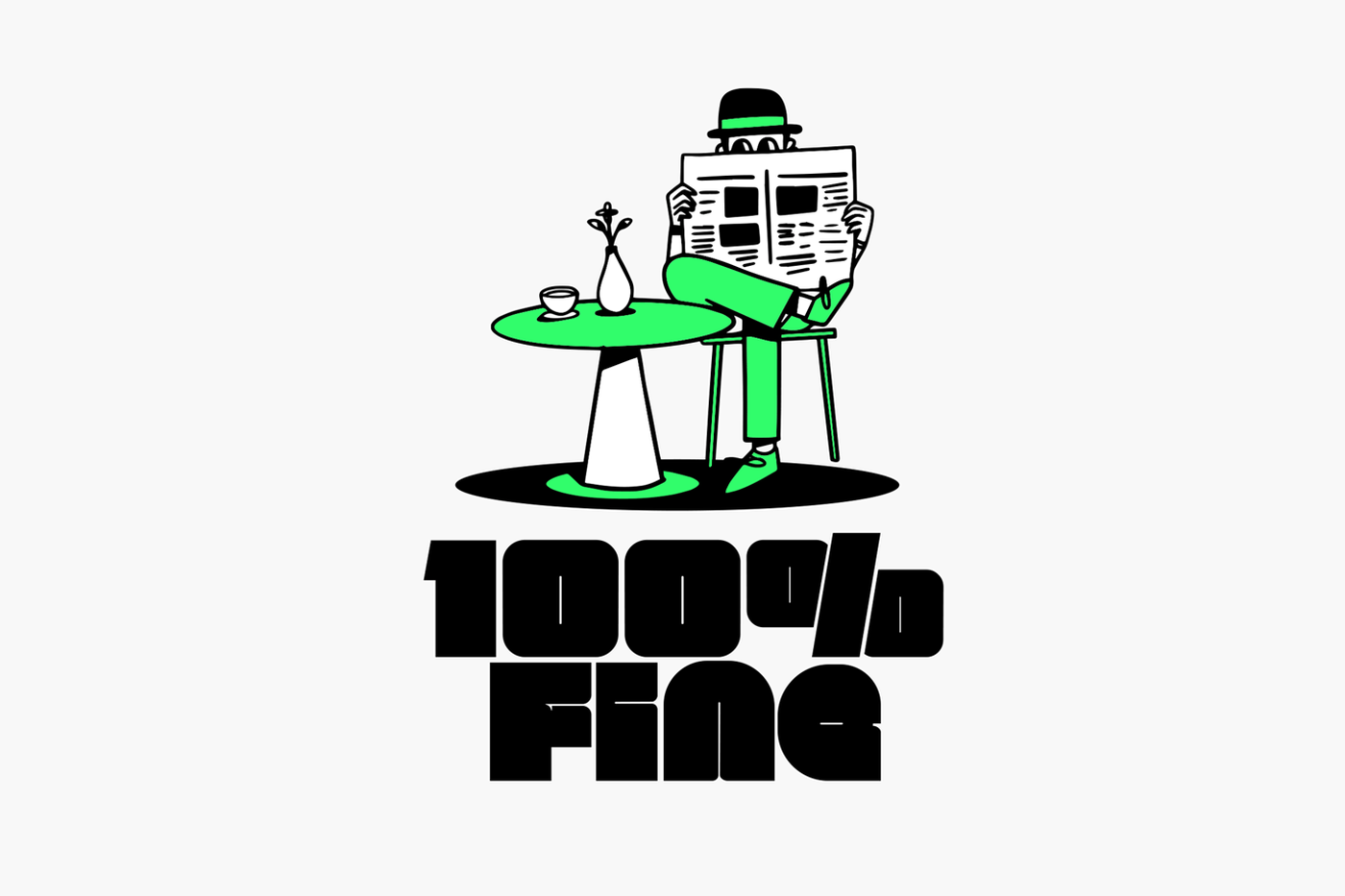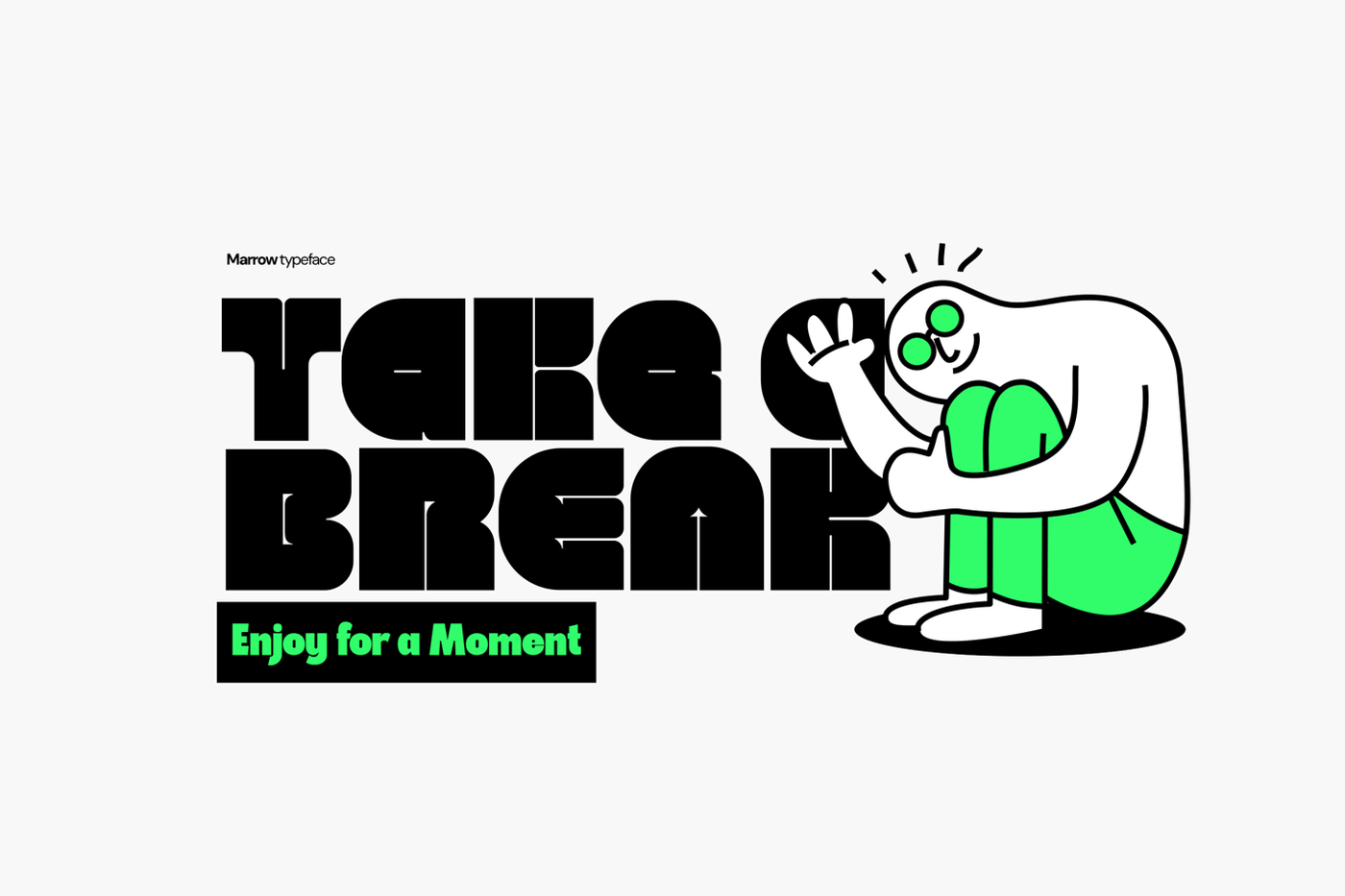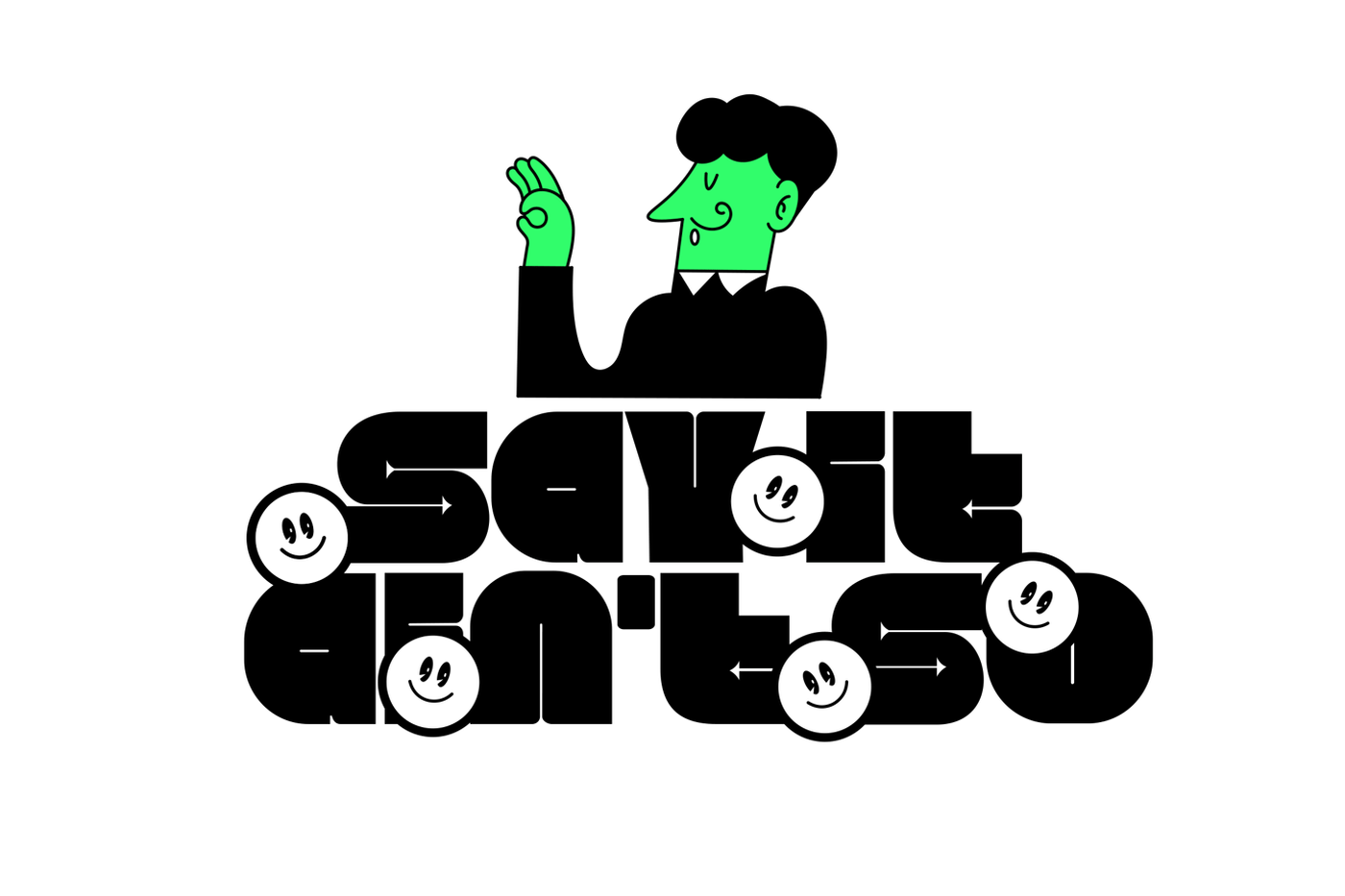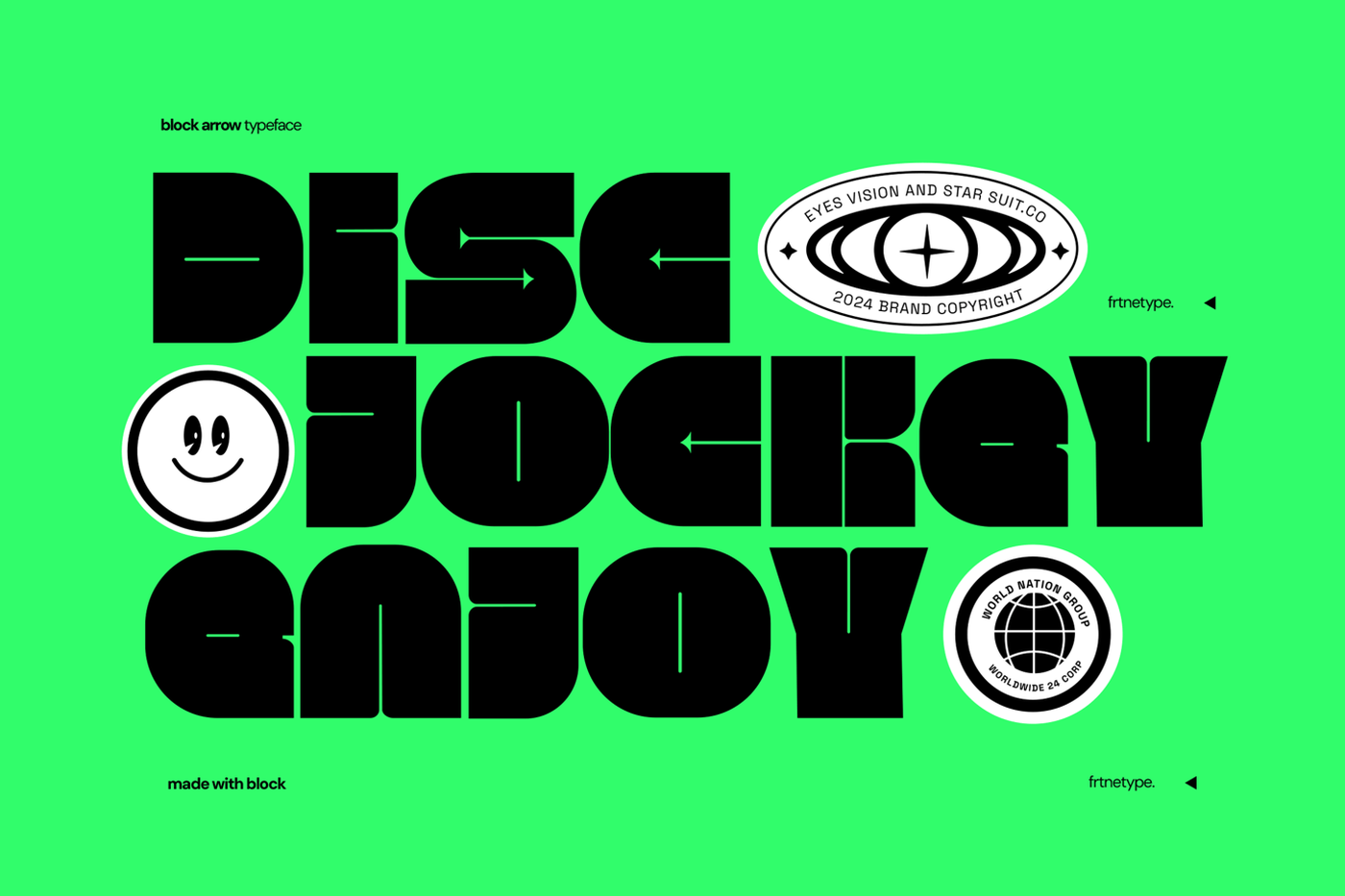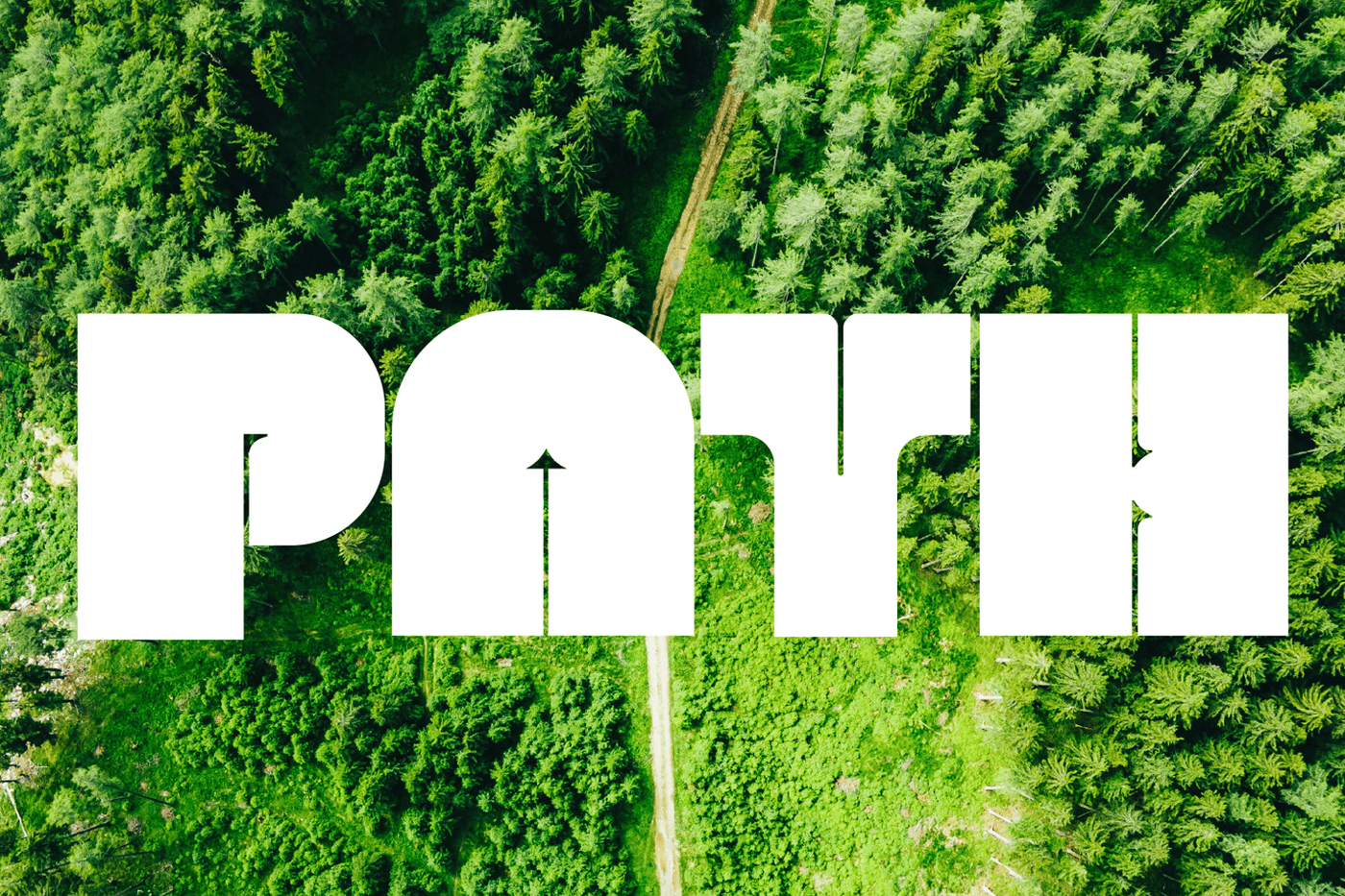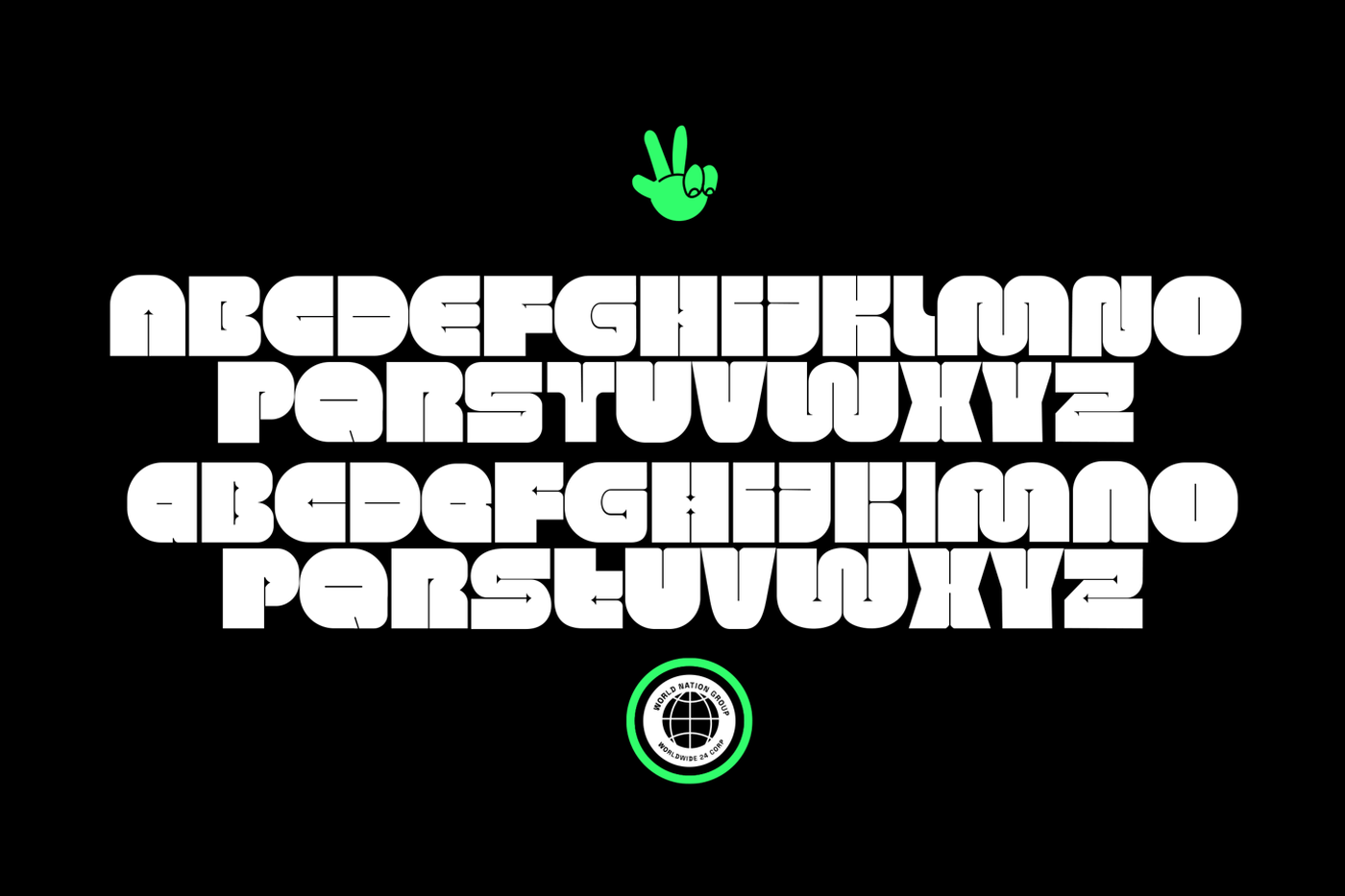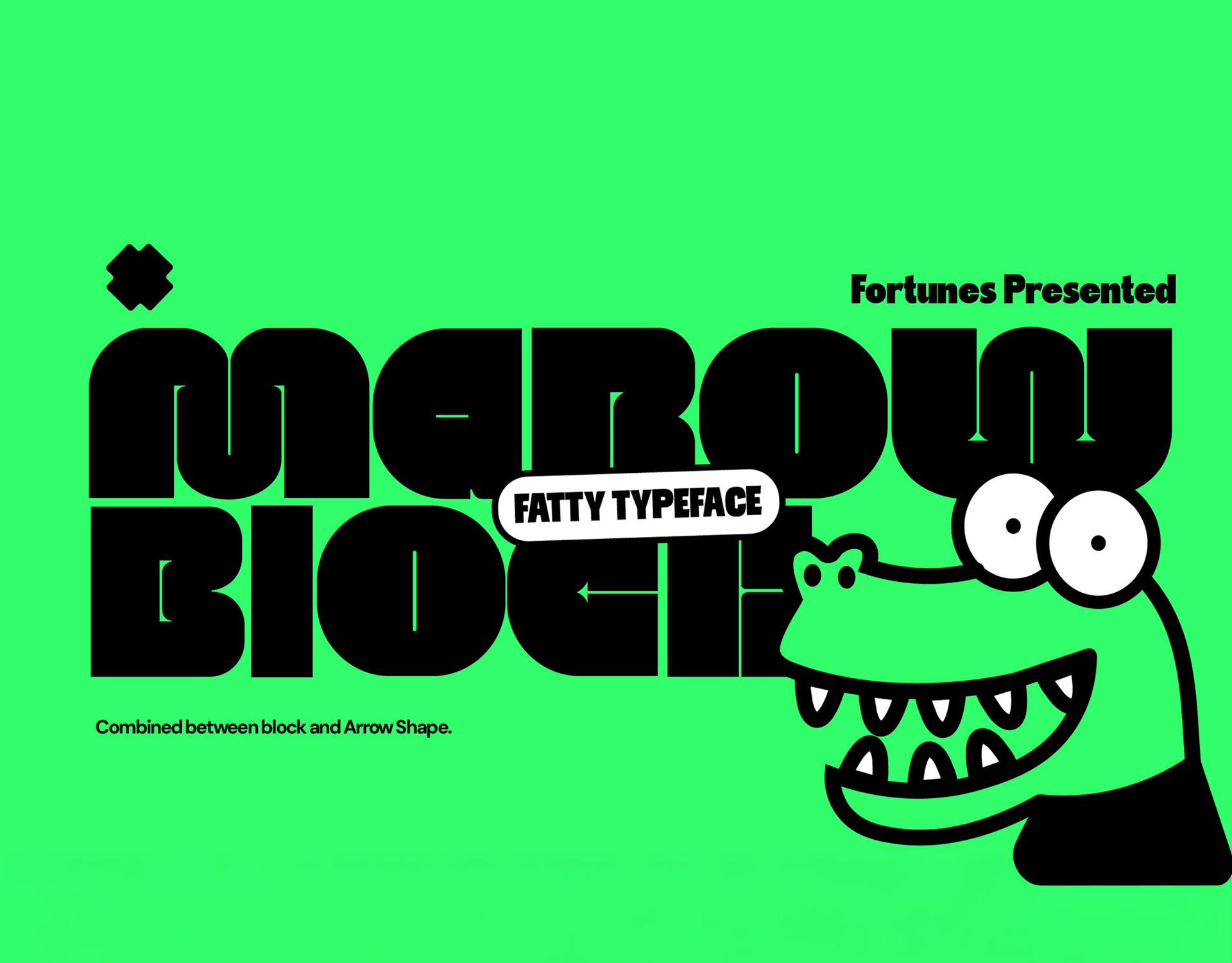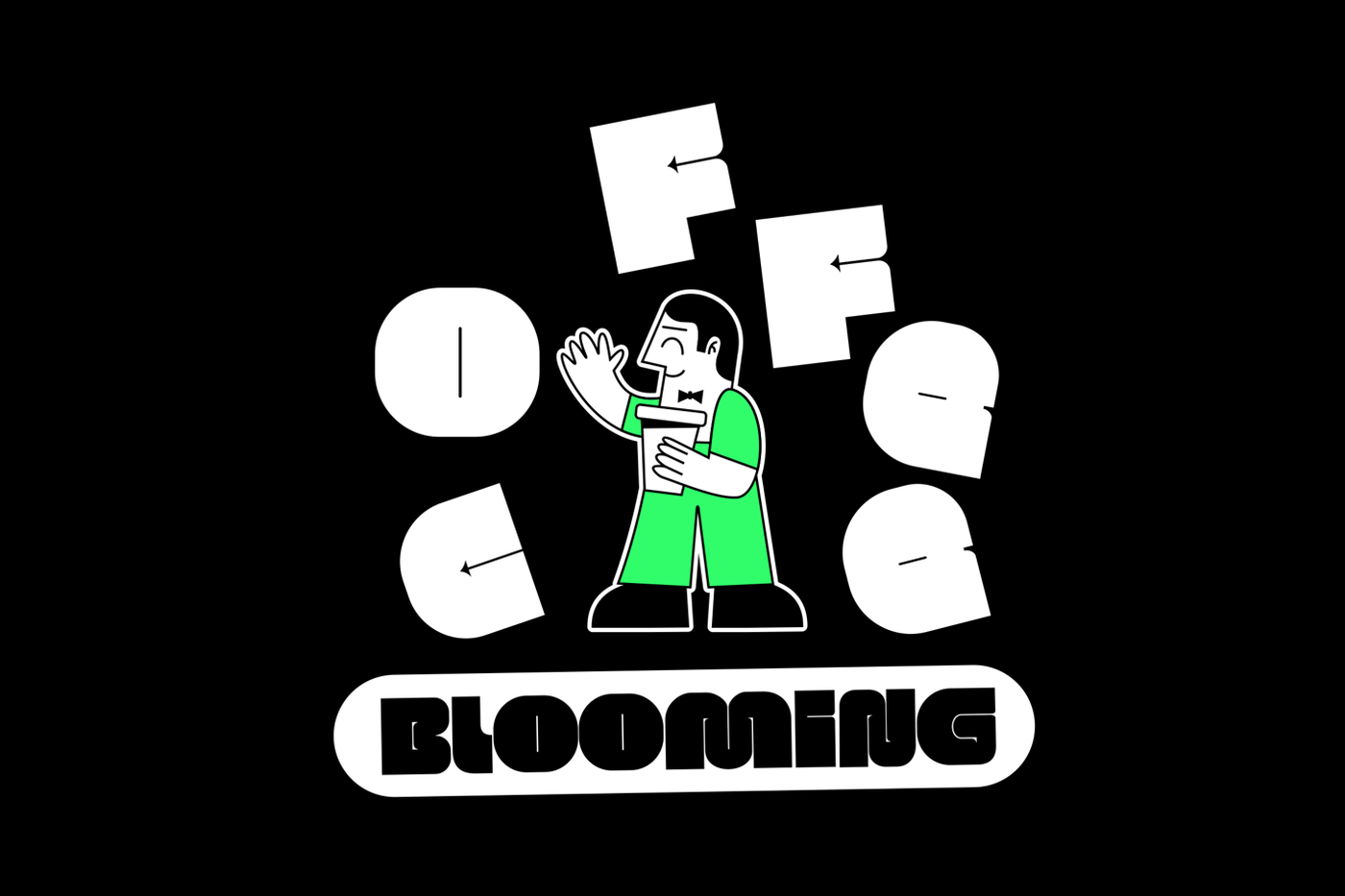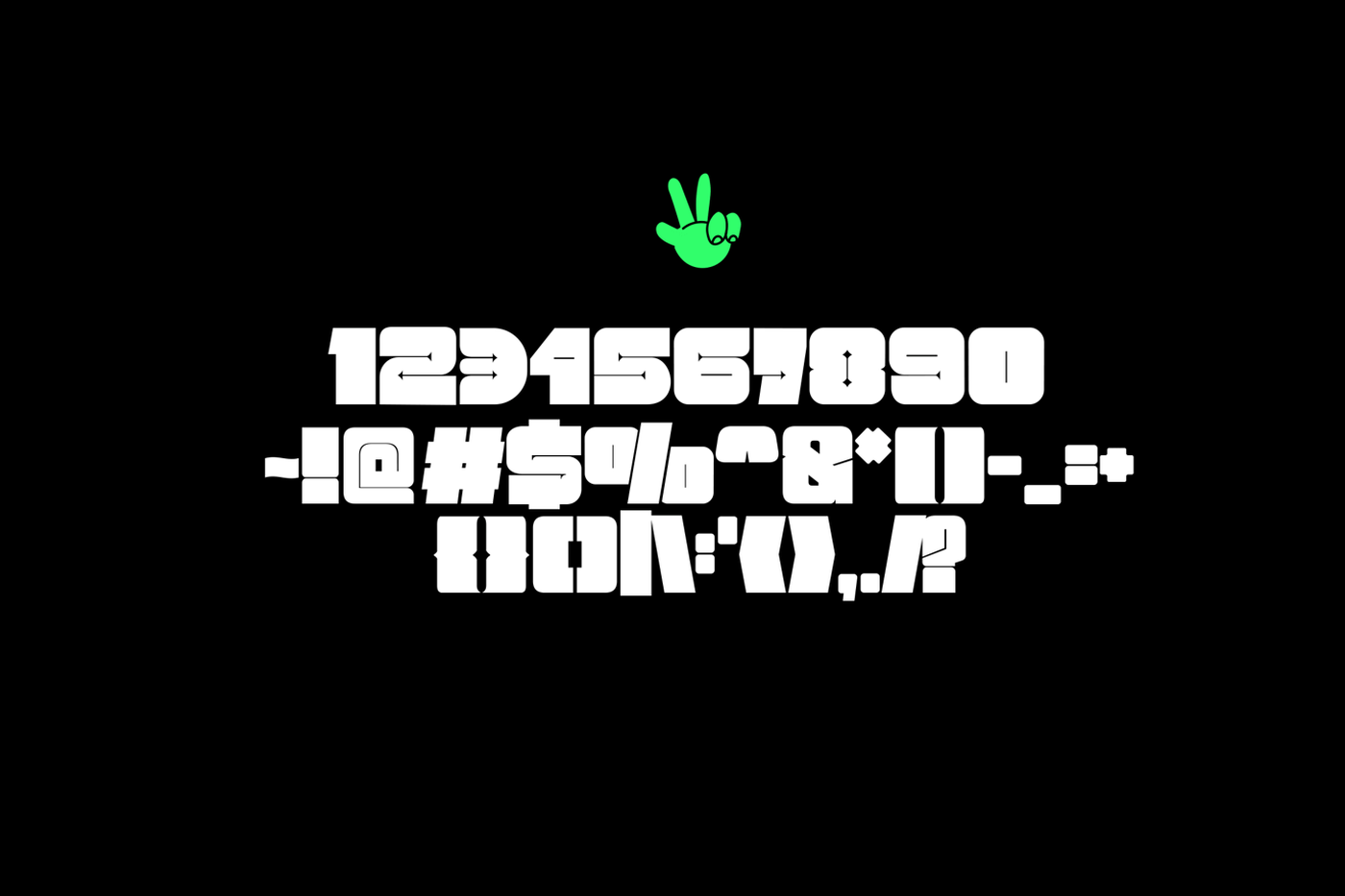
Marow Block - Bold Playful Font
A block funny font is a playful and bold typeface designed to bring a sense of fun and whimsy to any text combined with arrow shape. Characterized by thick, chunky letters with exaggerated proportions, it often features quirky elements such as uneven shapes, rounded edges, or unexpected twists. Its eye-catching and friendly appearance makes it ideal for grabbing attention and adding a dash of humor to designs, creating an inviting and cheerful atmosphere.